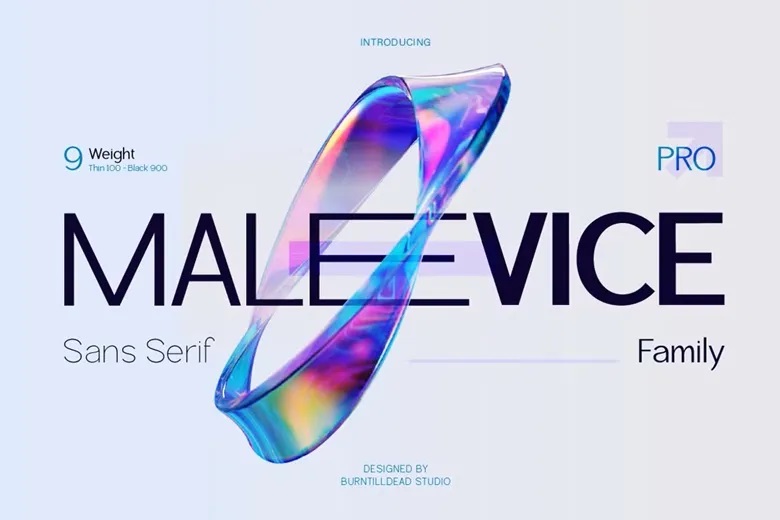
Malevice Pro Font
Malevice Pro is a new sans serif font family that perfectly blends modern style and flexibility. This font has a clean, balanced, and professional look it and it will go great in all kinds of design projects. With 9 weights ranging from Thin through to Black,
Malevice Pro provides the flexibility to use it for everything from tight, minimal design to robust, punchy design. It also has special alternates which are bound to increase the uniqueness of your designs yet make them easy to decipher.
Malevice Pro Sans Serif Font Family